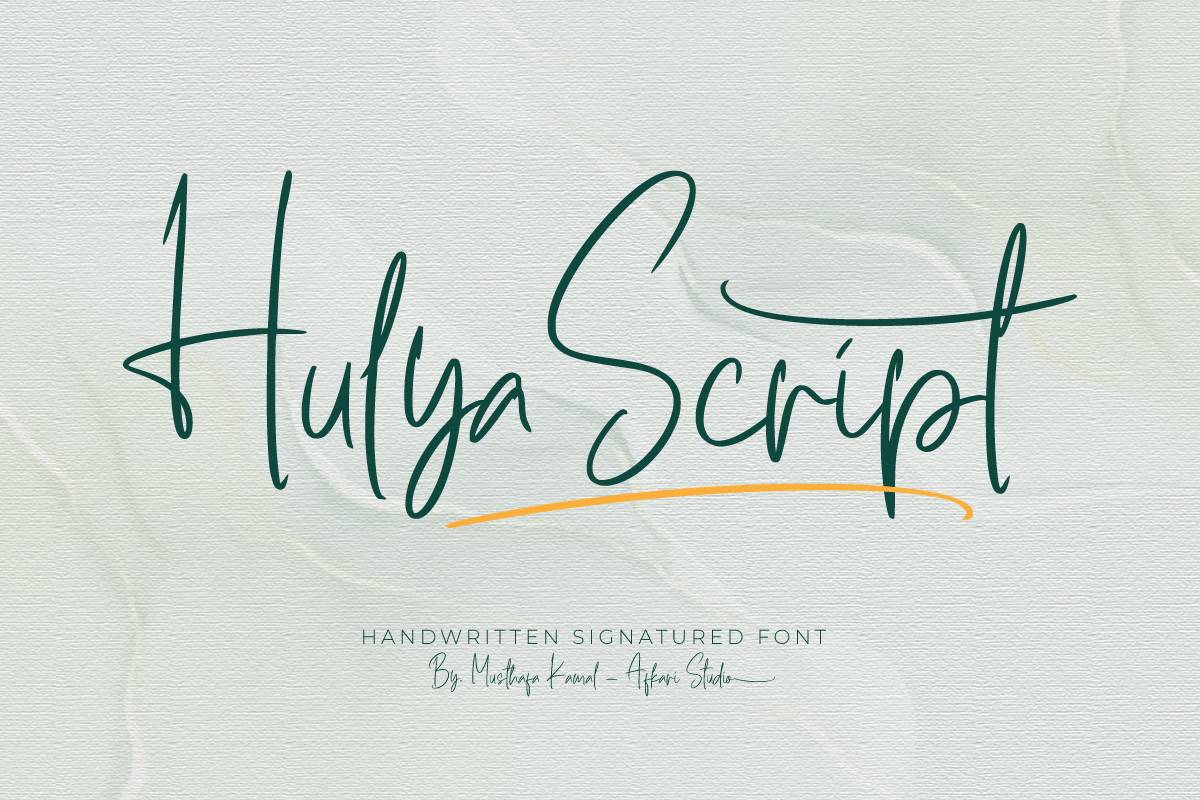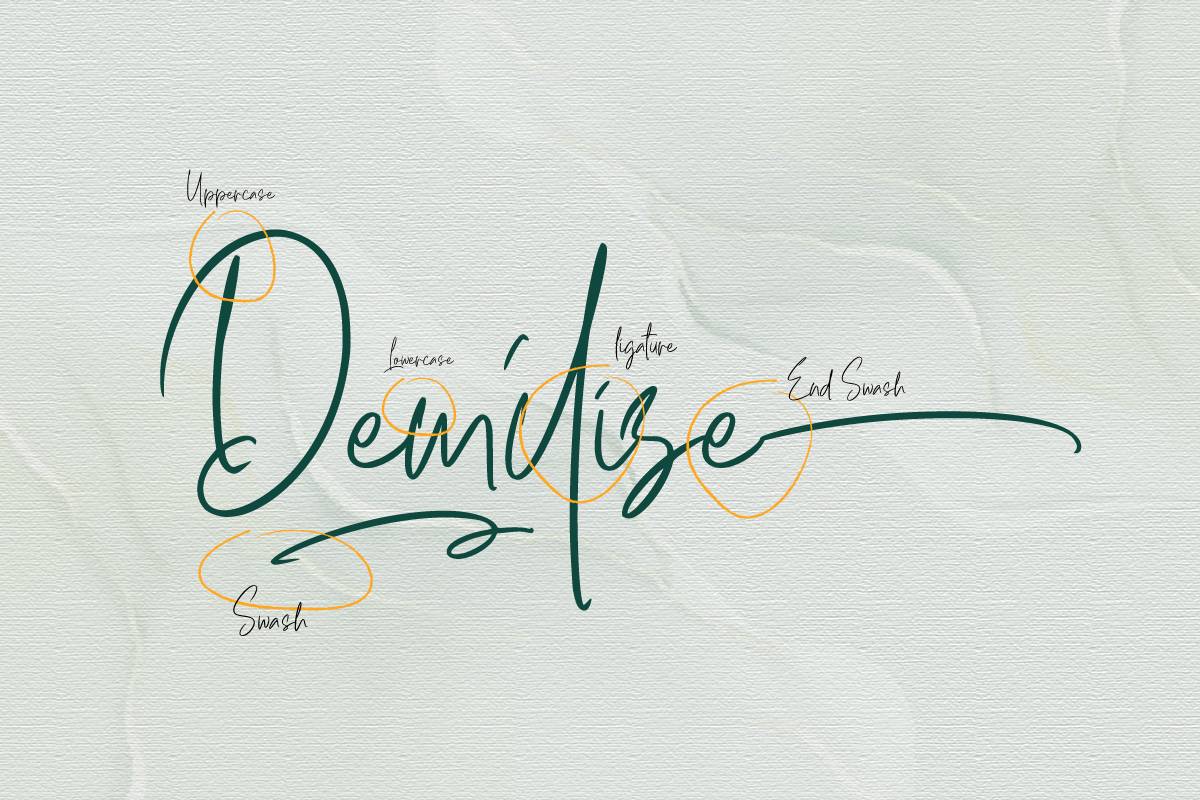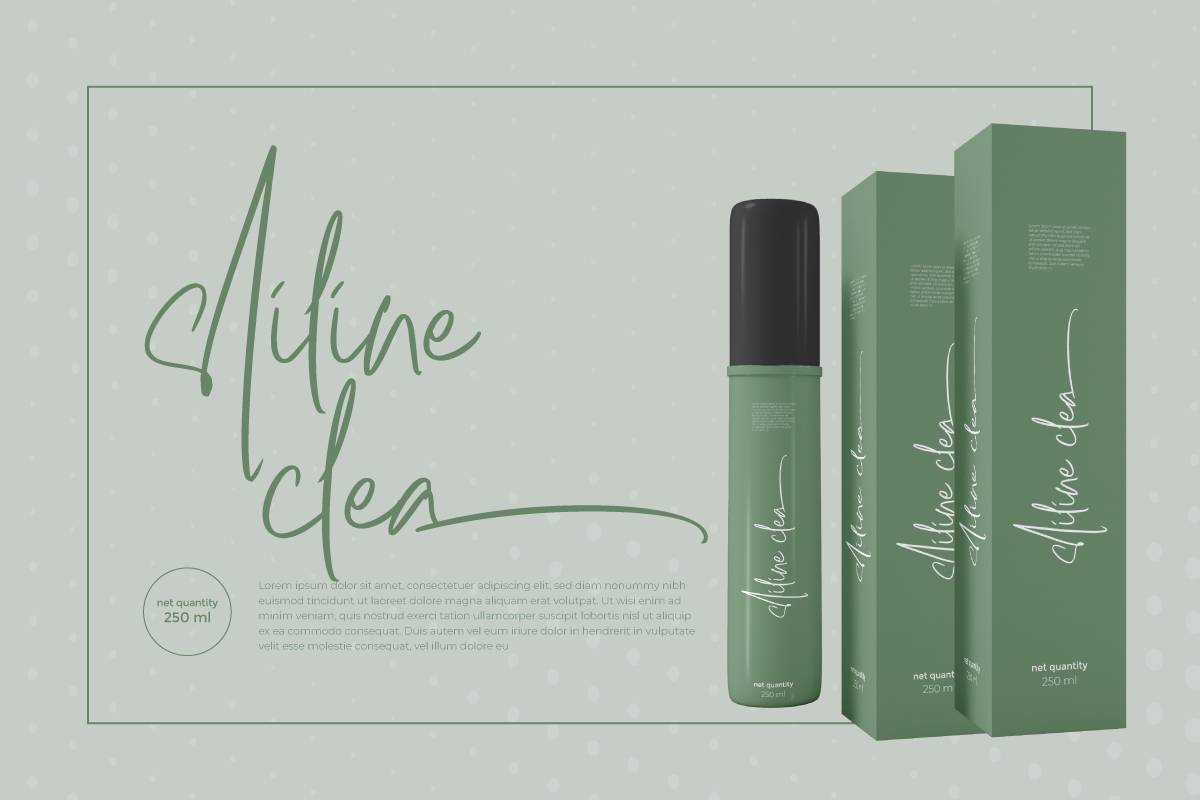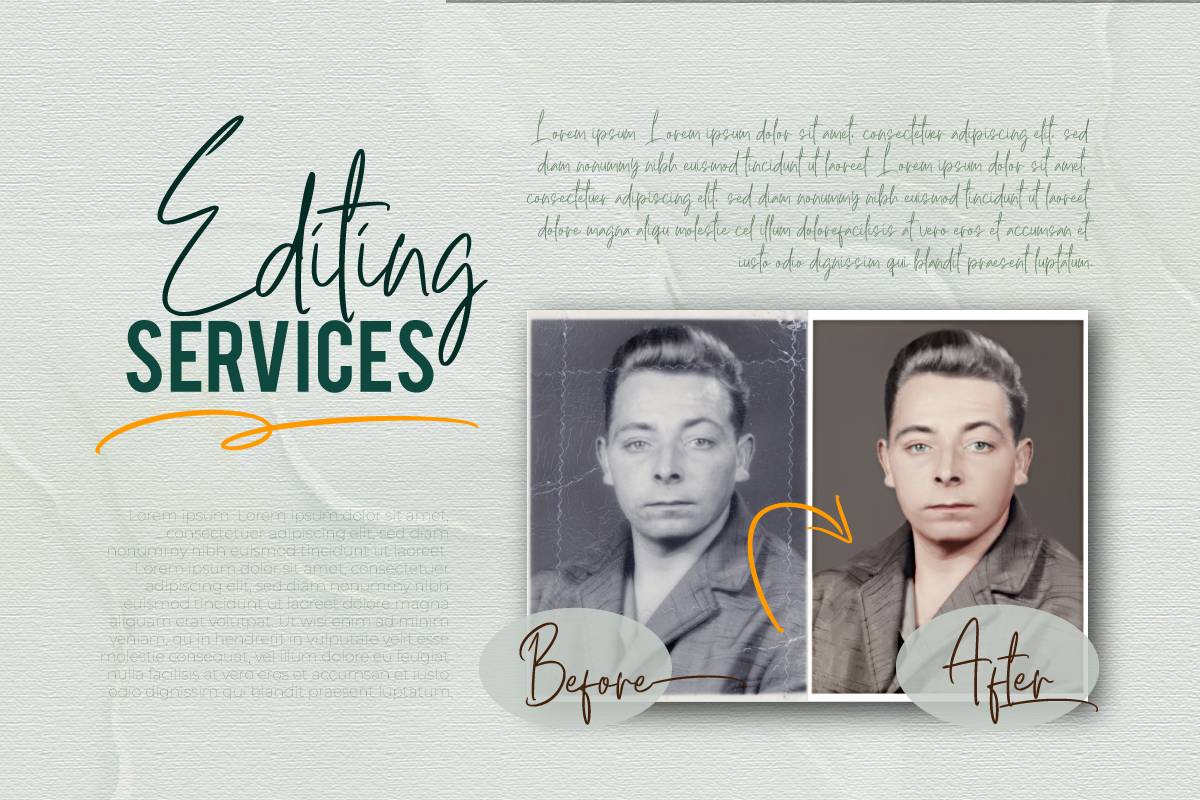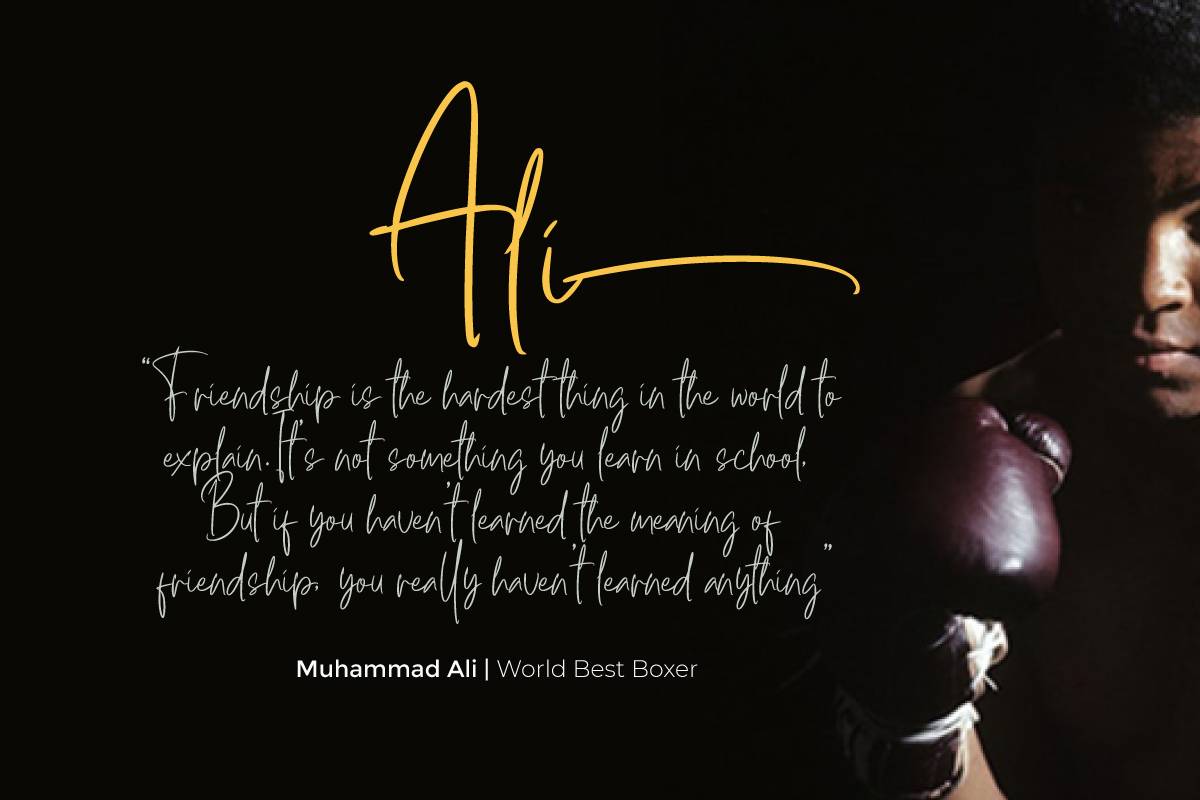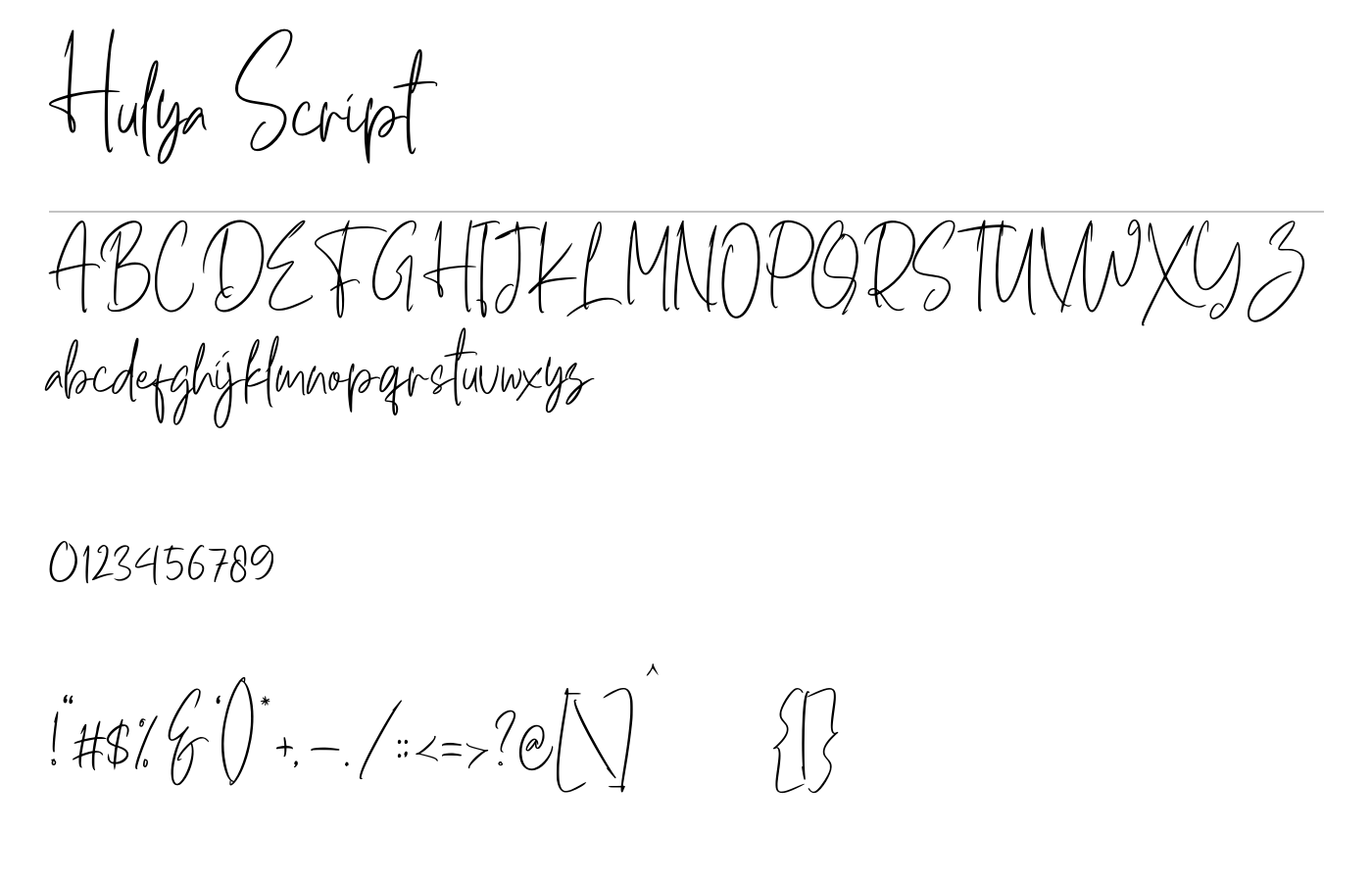
Hulya Script is a delicate, narrow script font with a casual, handwritten feel created by its tall, slender letterforms and fine, uneven strokes. Its light weight and slightly quirky shapes give it a personal, artistic vibe, making it ideal for creative projects that seek a touch of elegance and individuality. This font works beautifully in branding, invitations, and editorial headlines where a modern yet approachable style is desired.
Hulya Script Font
About Hulya Script Font
| Font family | Hulya Script Font |
| Release date | 2022-07-02 |
| Designer | Musthafa Kamal Emje - Afkari Studio |